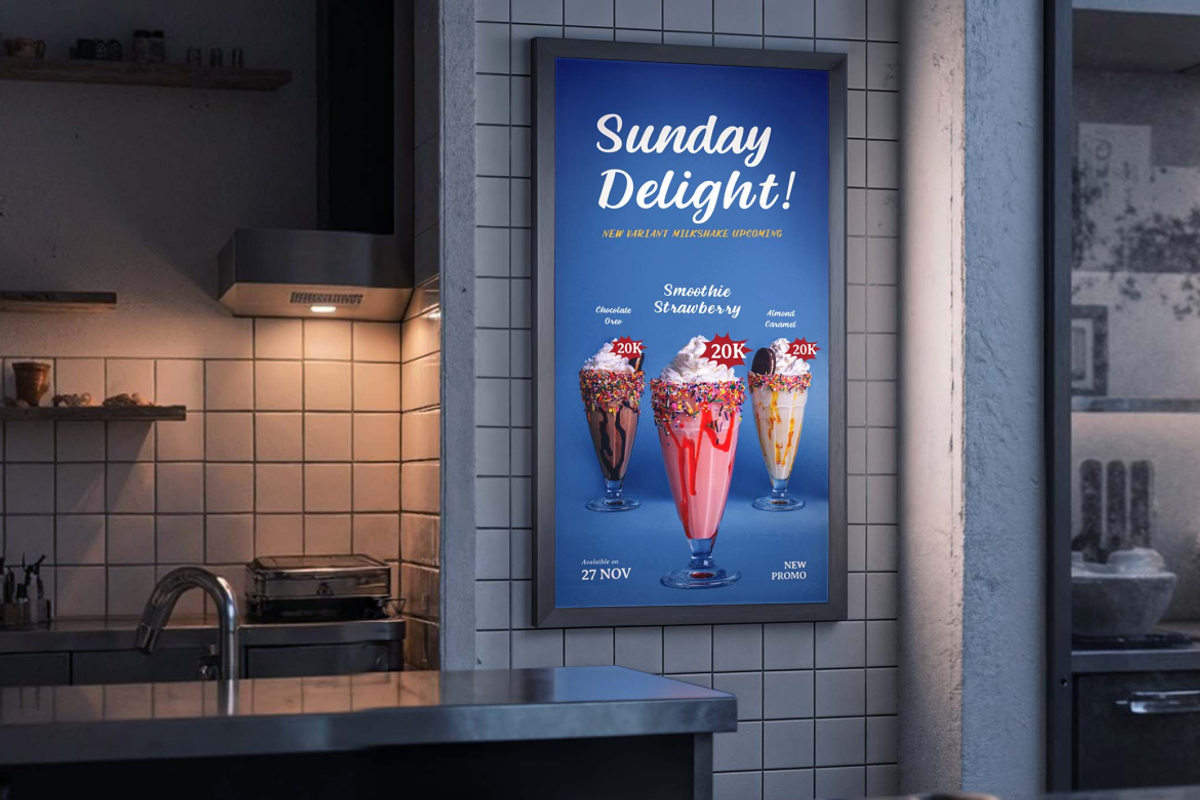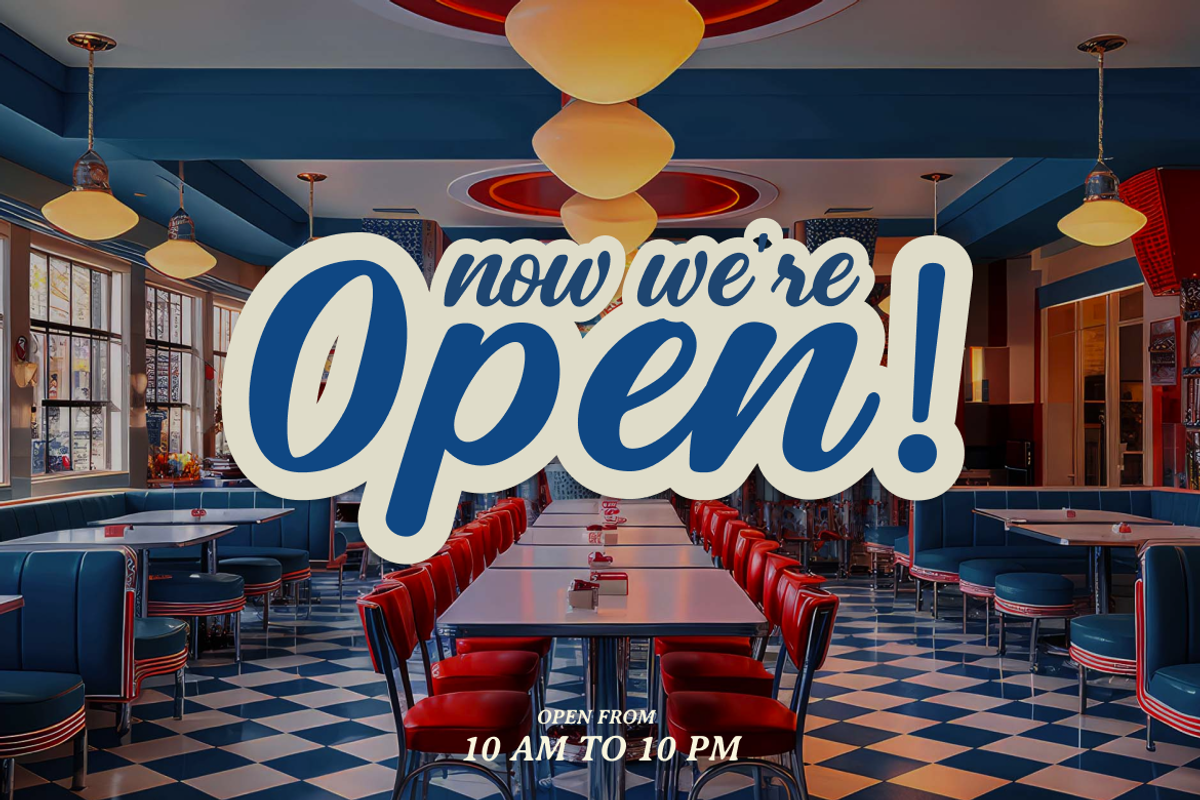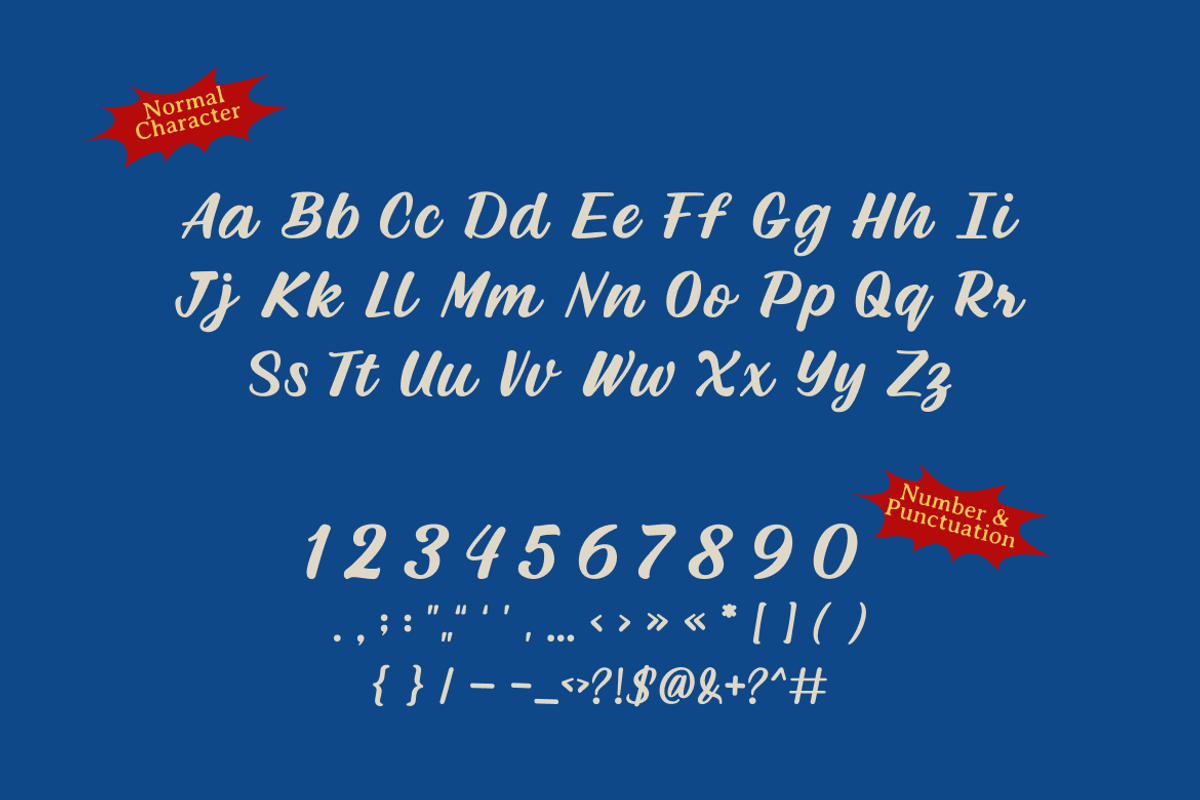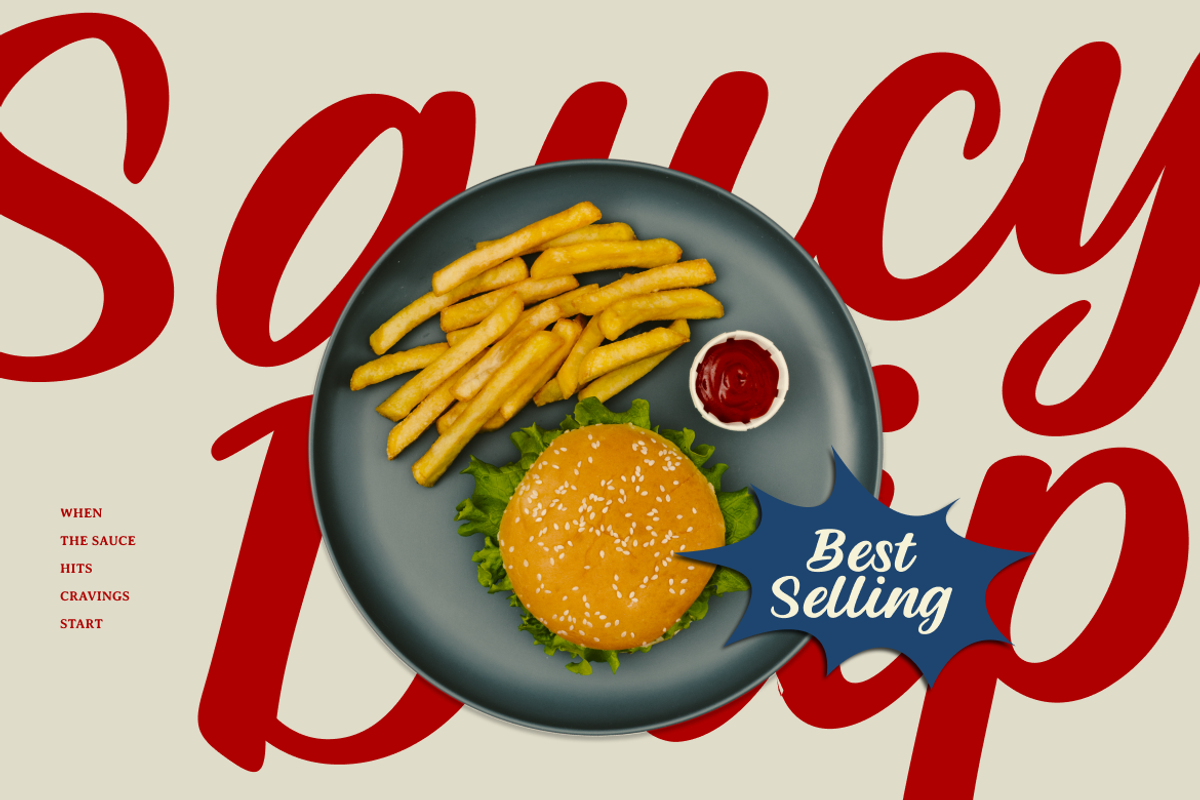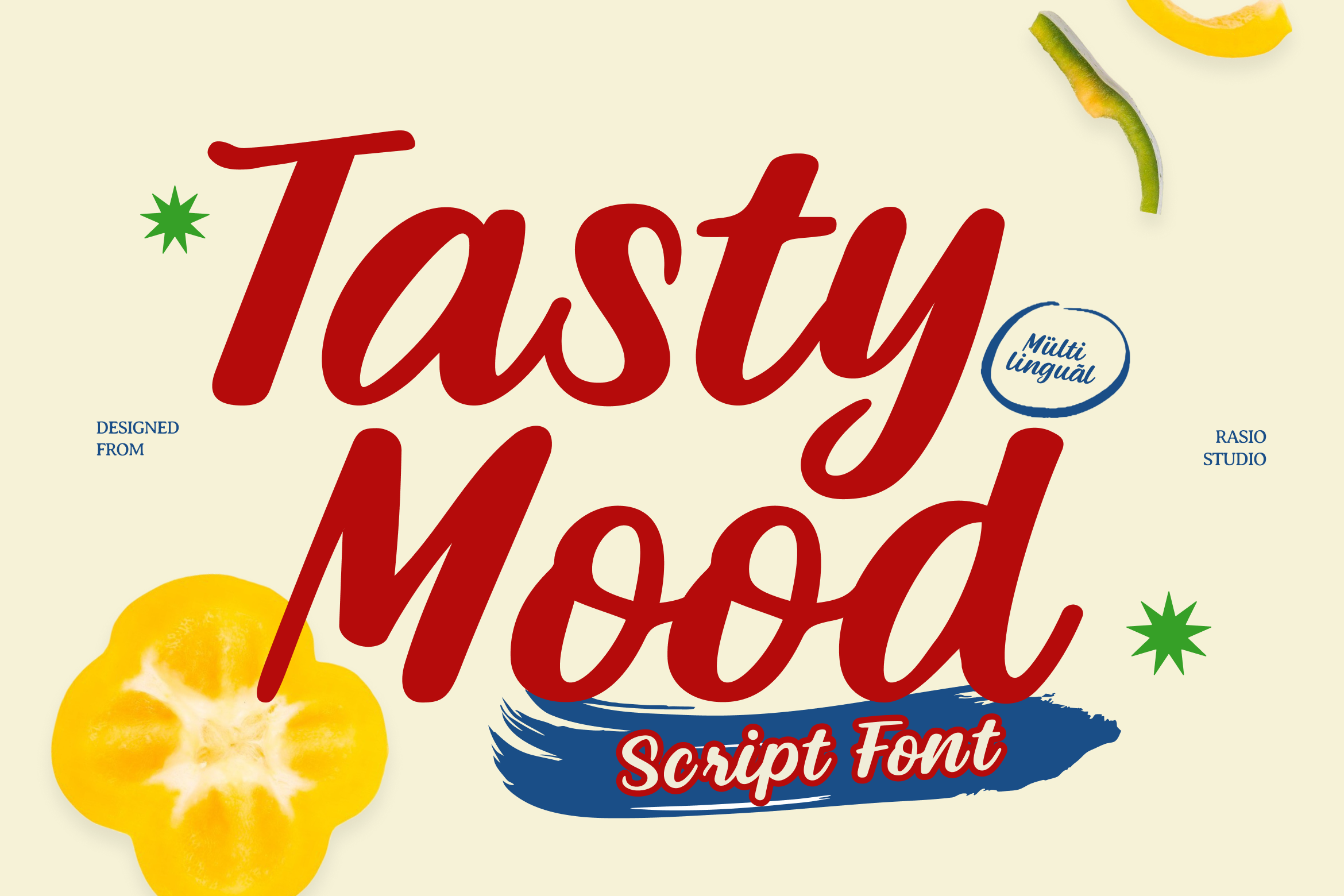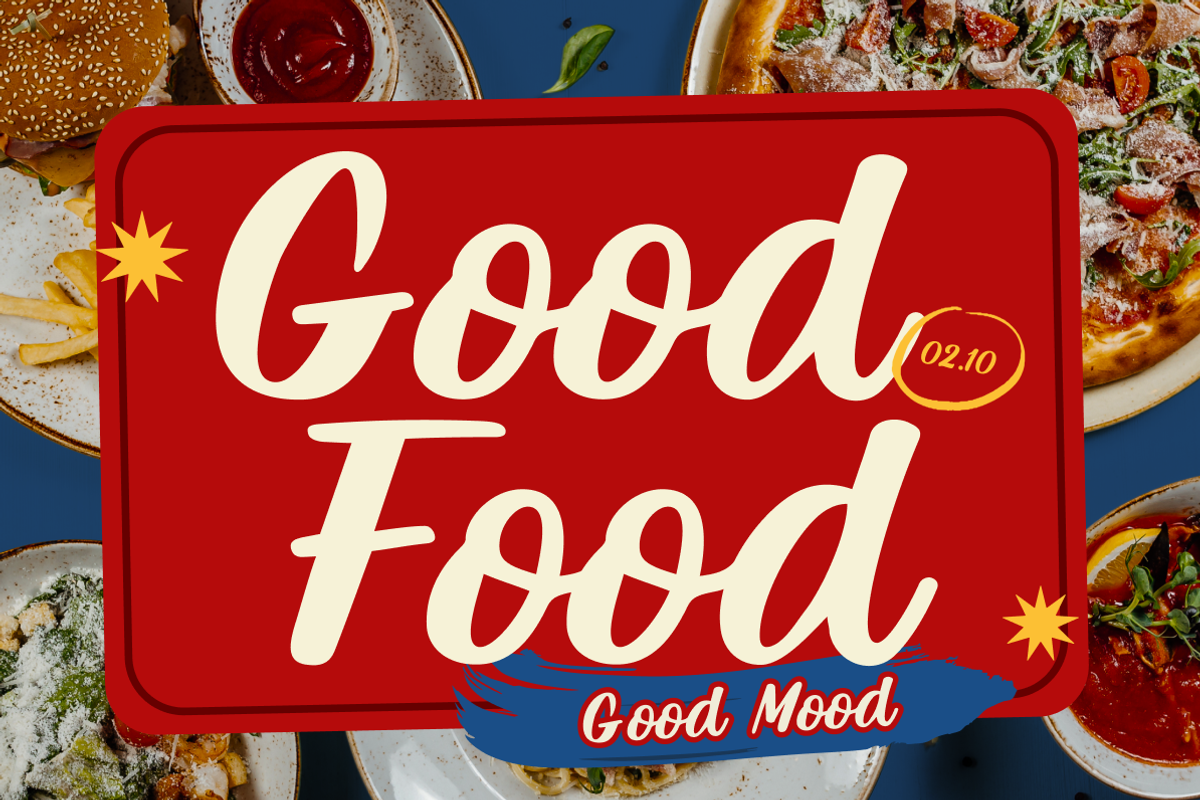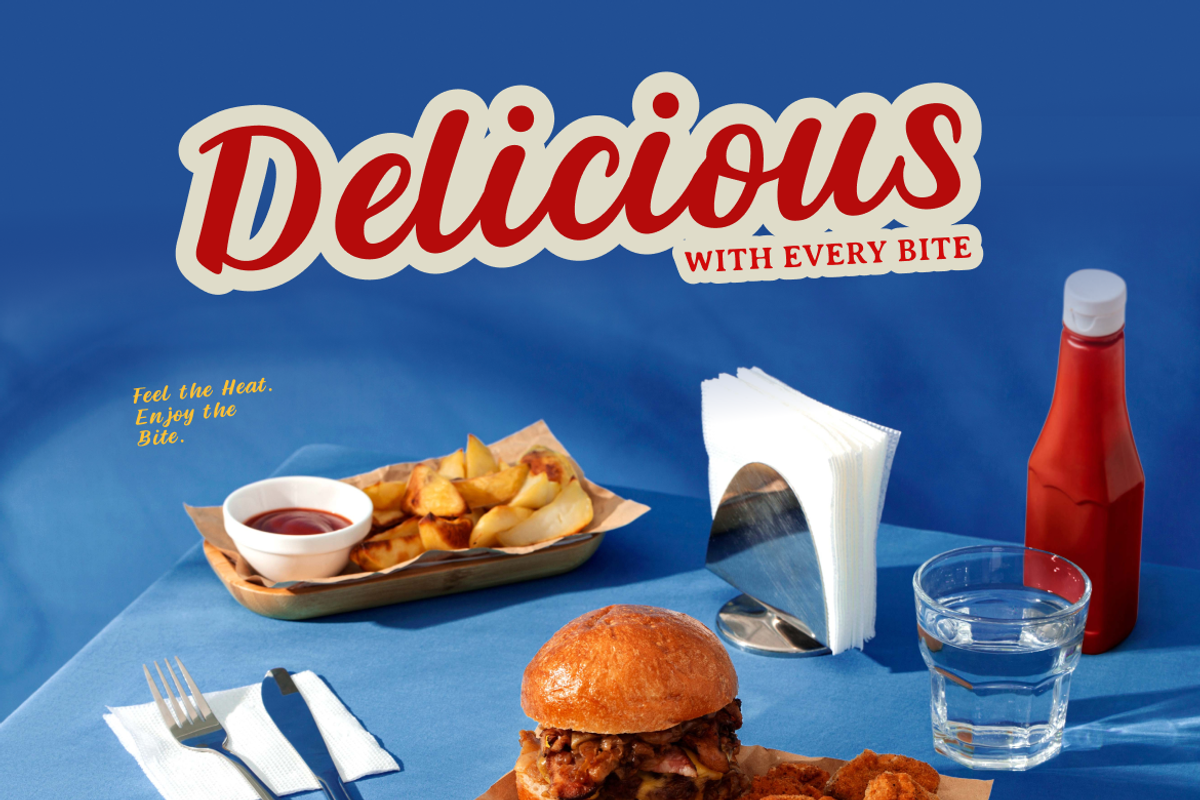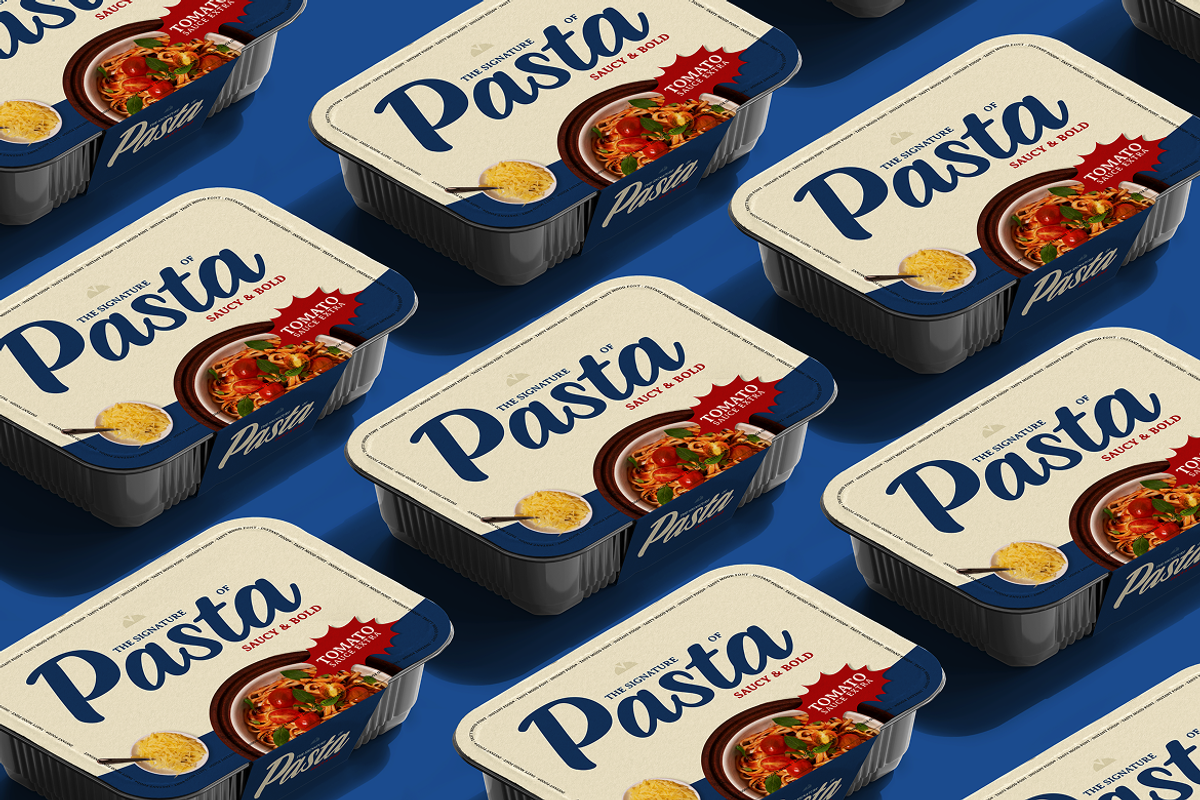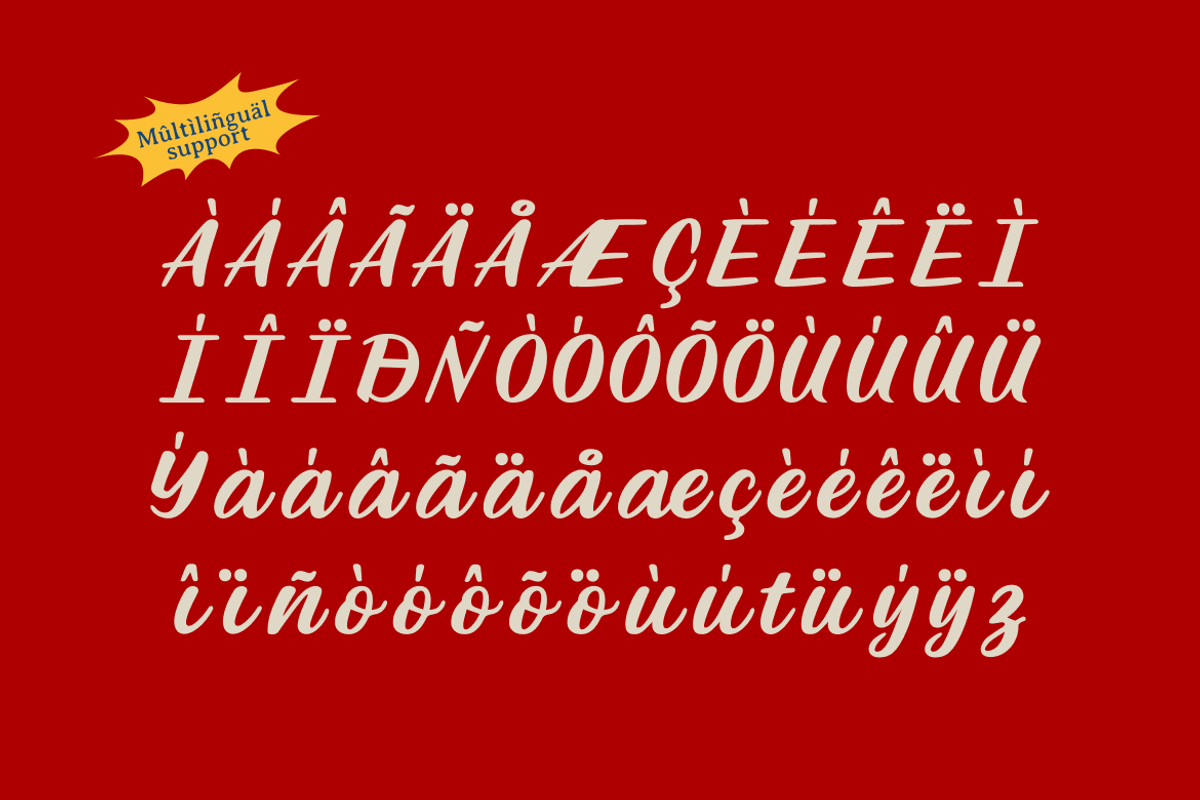
Tasty Mood Food Brush Script Font
Tasty Mood is a bold brush script font featuring smooth flowing strokes, thick curves, and confident handwritten movement. It includes uppercase and lowercase characters, numbers, punctuation, and multilingual support, designed with consistent stroke weight and rounded terminals for a soft yet impactful look. The letterforms carry a retro diner and classic food branding atmosphere, making it highly expressive in large display settings.
Tasty Mood is highly relevant for food-related branding and promotional materials that require a bold, warm, and appetizing personality. It works perfectly for restaurant logos, burger packaging, café menus, street food posters, product labels, and social media campaigns where expressive script typography enhances visual flavor and brand memorability.
- Bold brush script design with smooth flowing handwritten strokes
- Thick, rounded letterforms with soft curves for a friendly feel
- Natural stroke contrast inspired by classic diner lettering
- Expressive swashes and dynamic rhythm for strong display impact
- Optimized spacing for eye-catching headlines and logo applications
- Food and beverage branding such as burger shops, cafés, bakeries, and snack brands
- Restaurant logos, menu boards, and promotional posters with a bold retro feel
- Product packaging and labels for sauces, street food, and handmade treats
- Social media content, food campaign ads, and seasonal promo graphics
- Merchandise designs like stickers, tote bags, aprons, and culinary branding kits